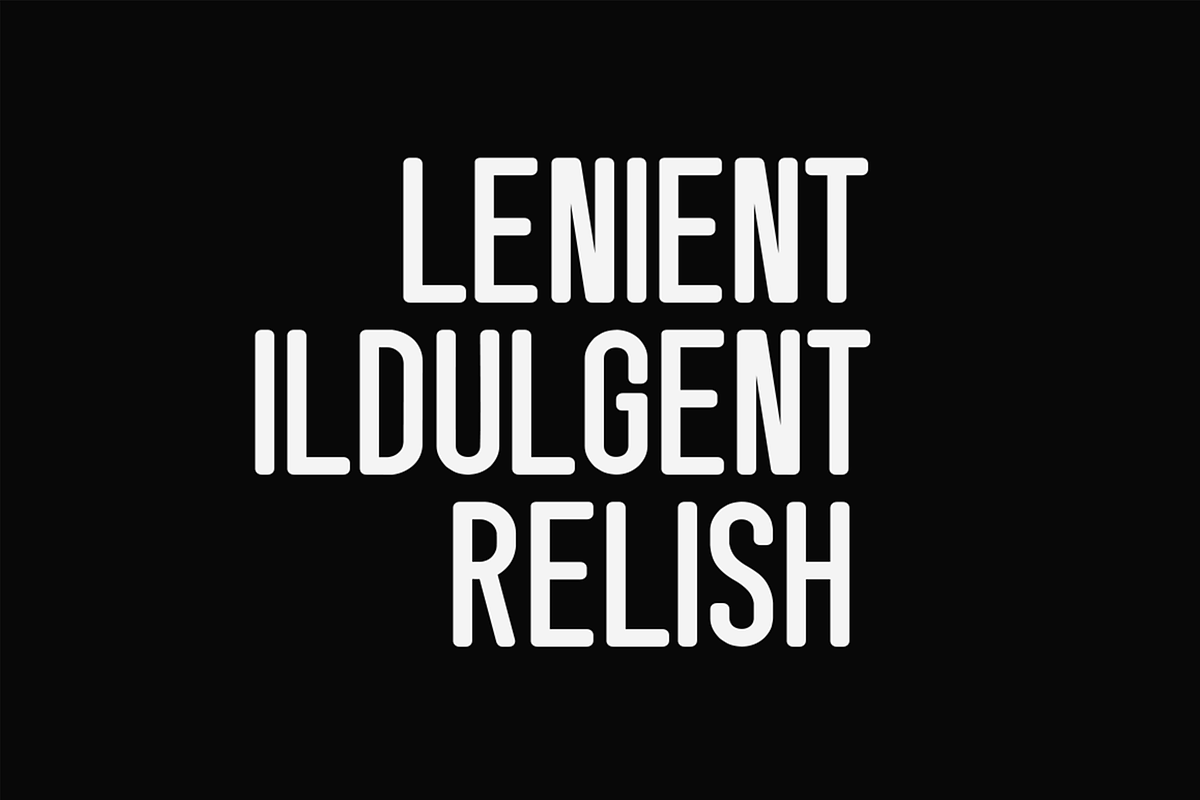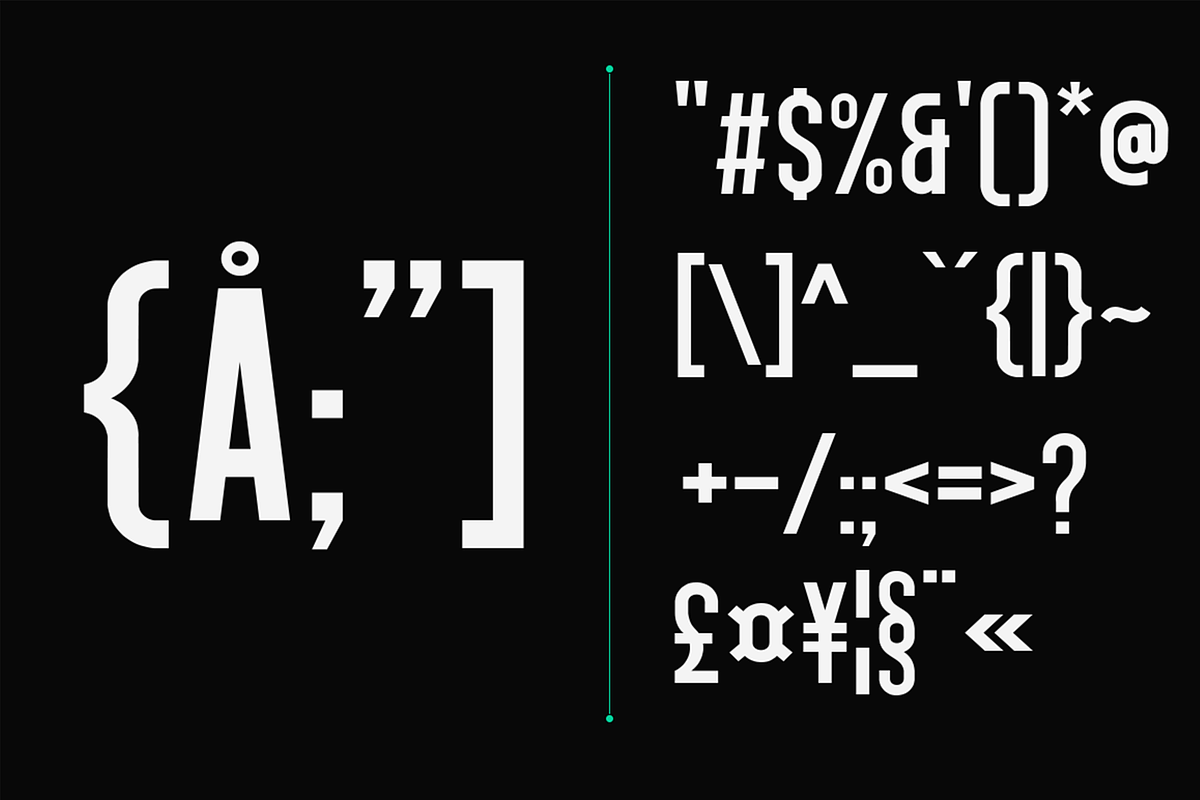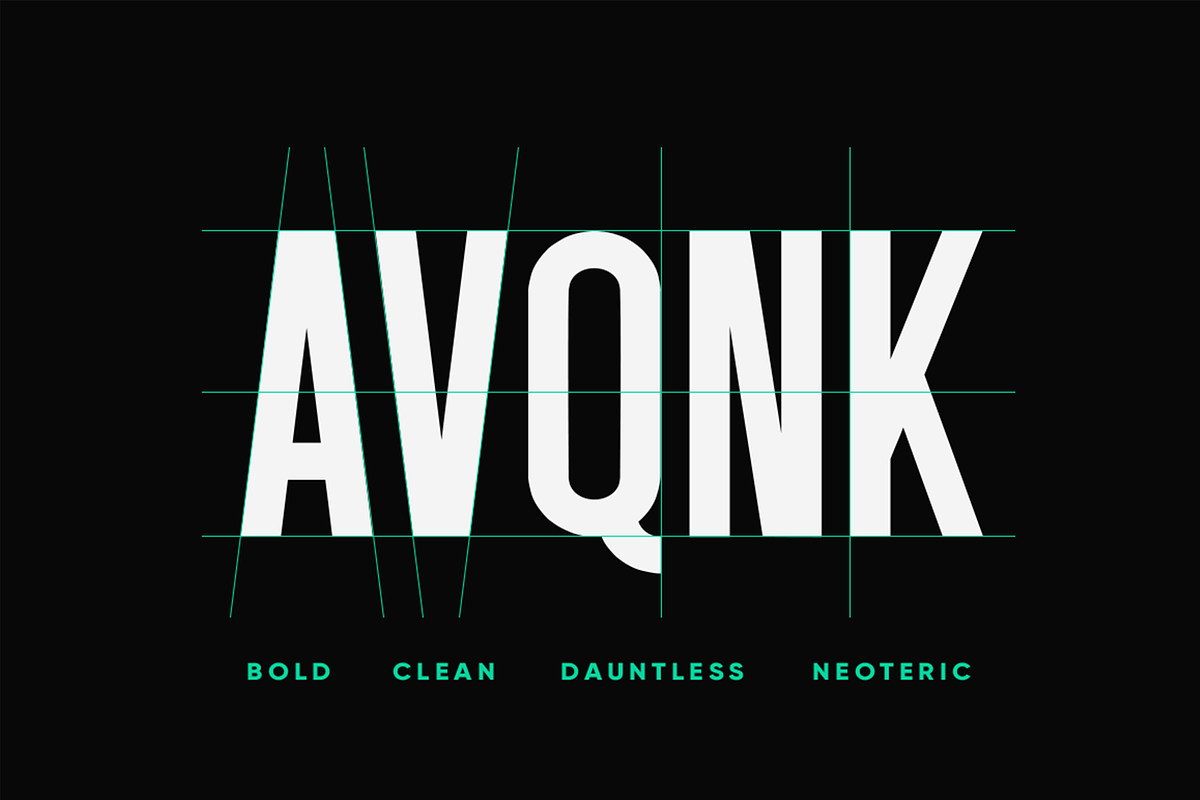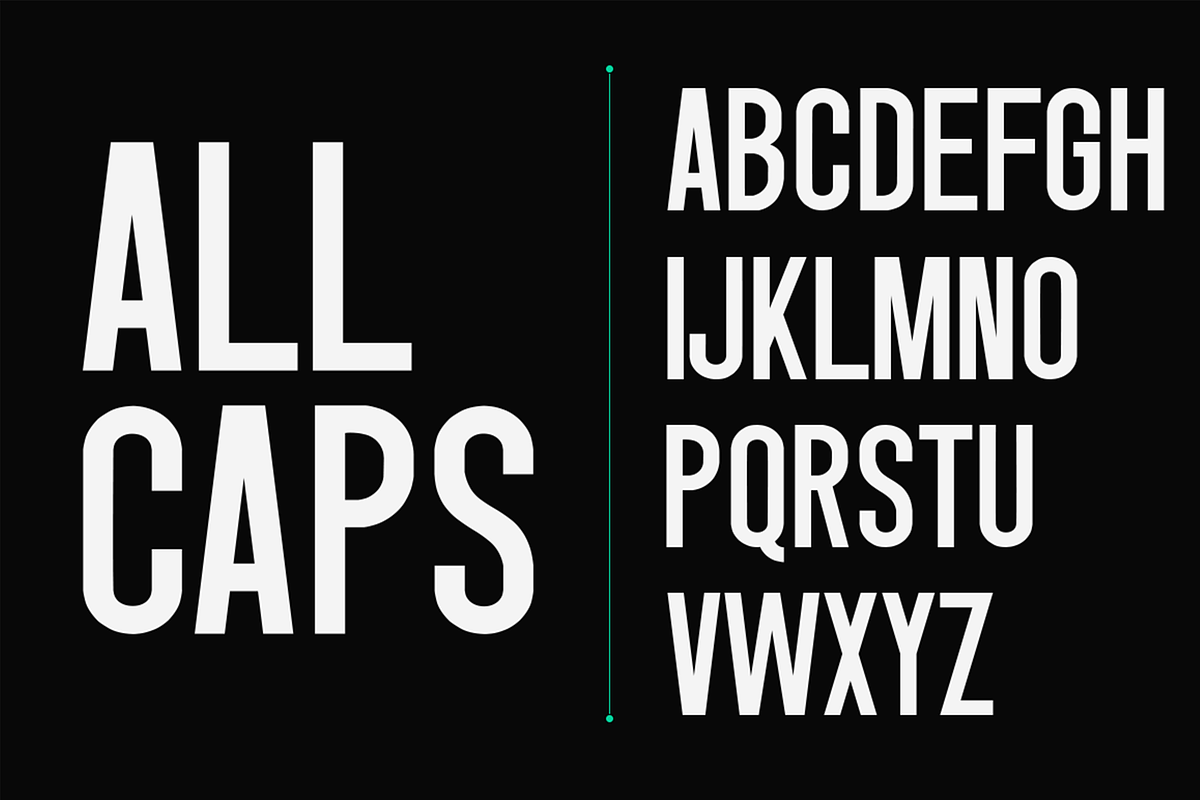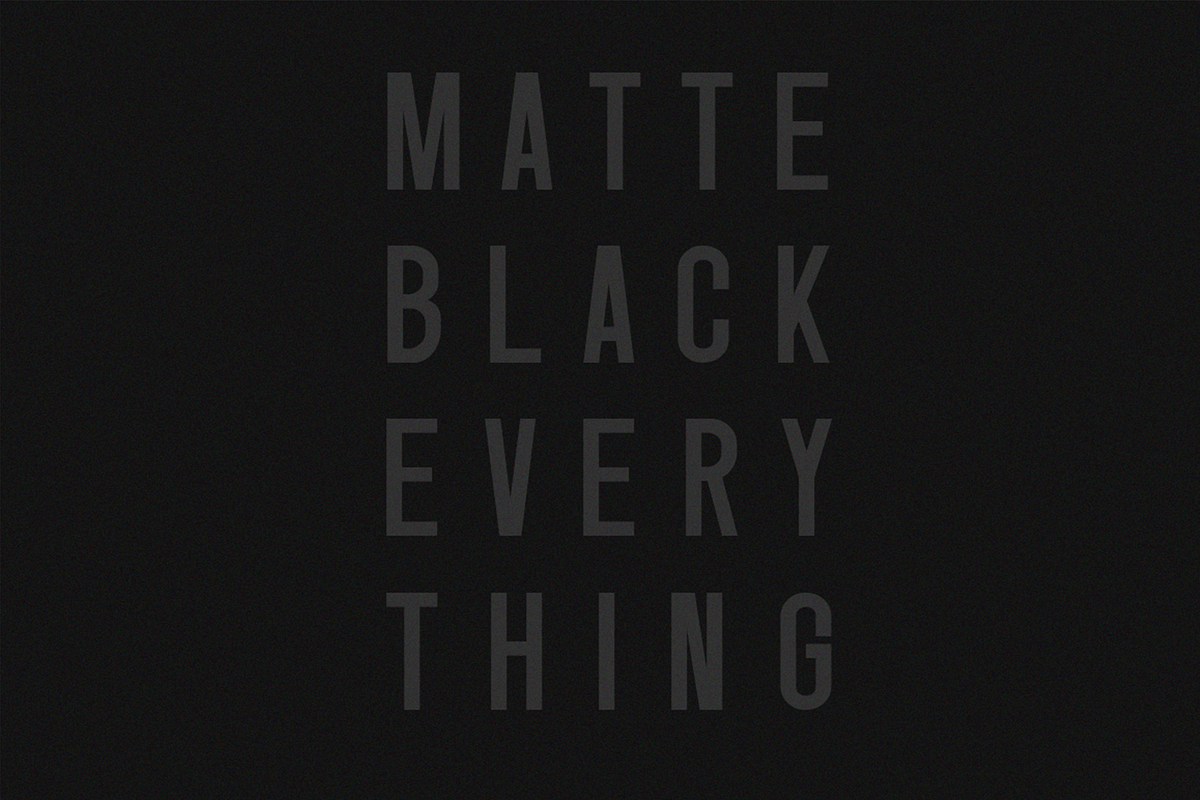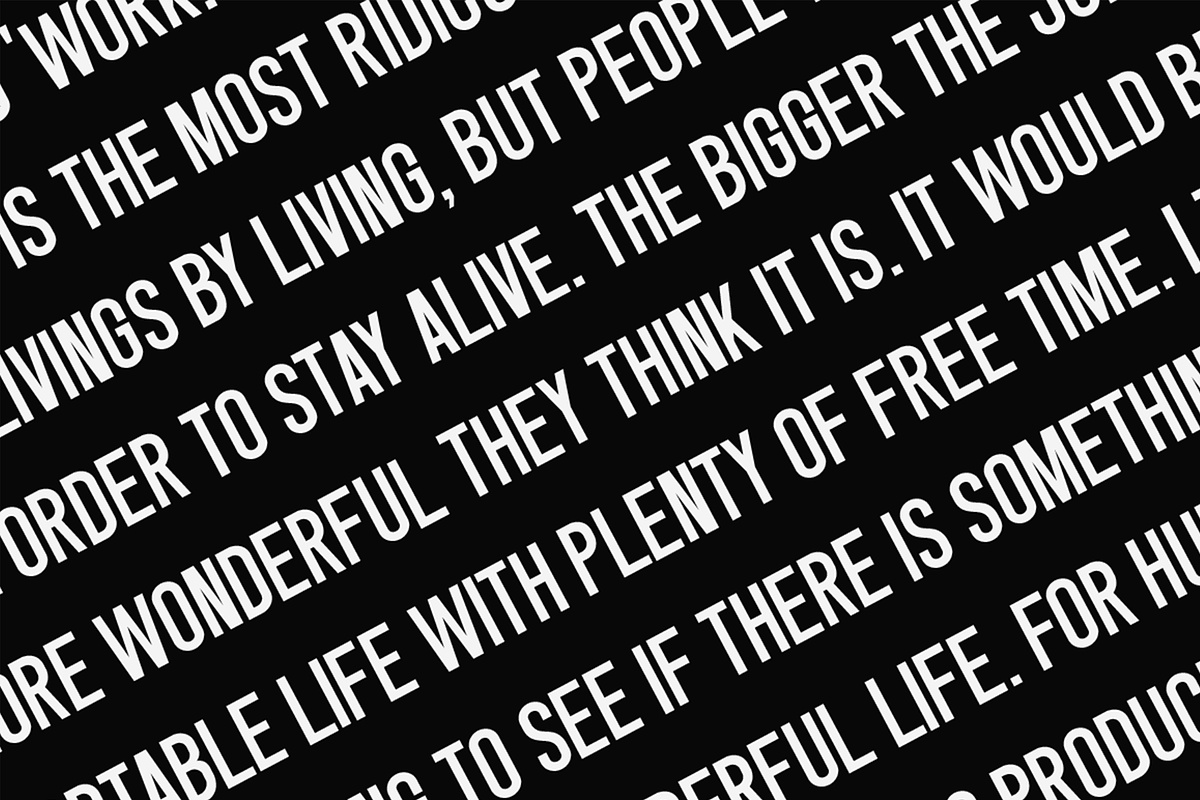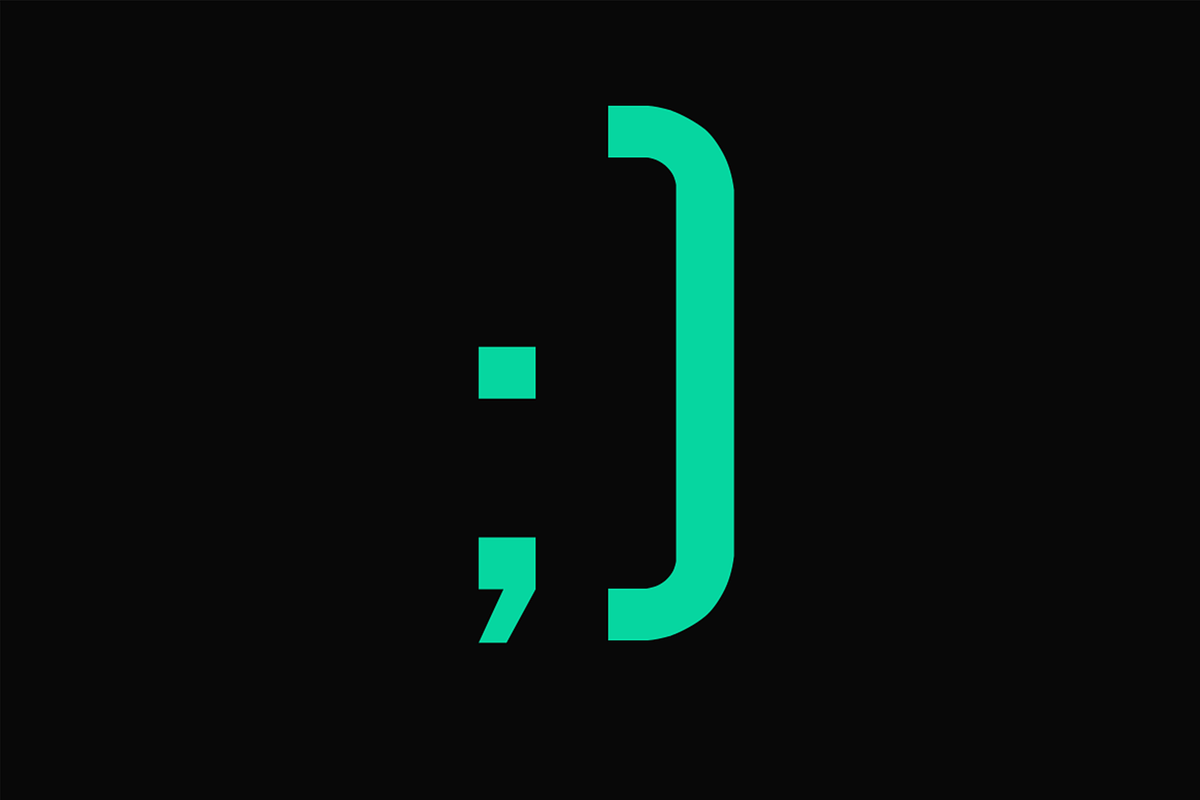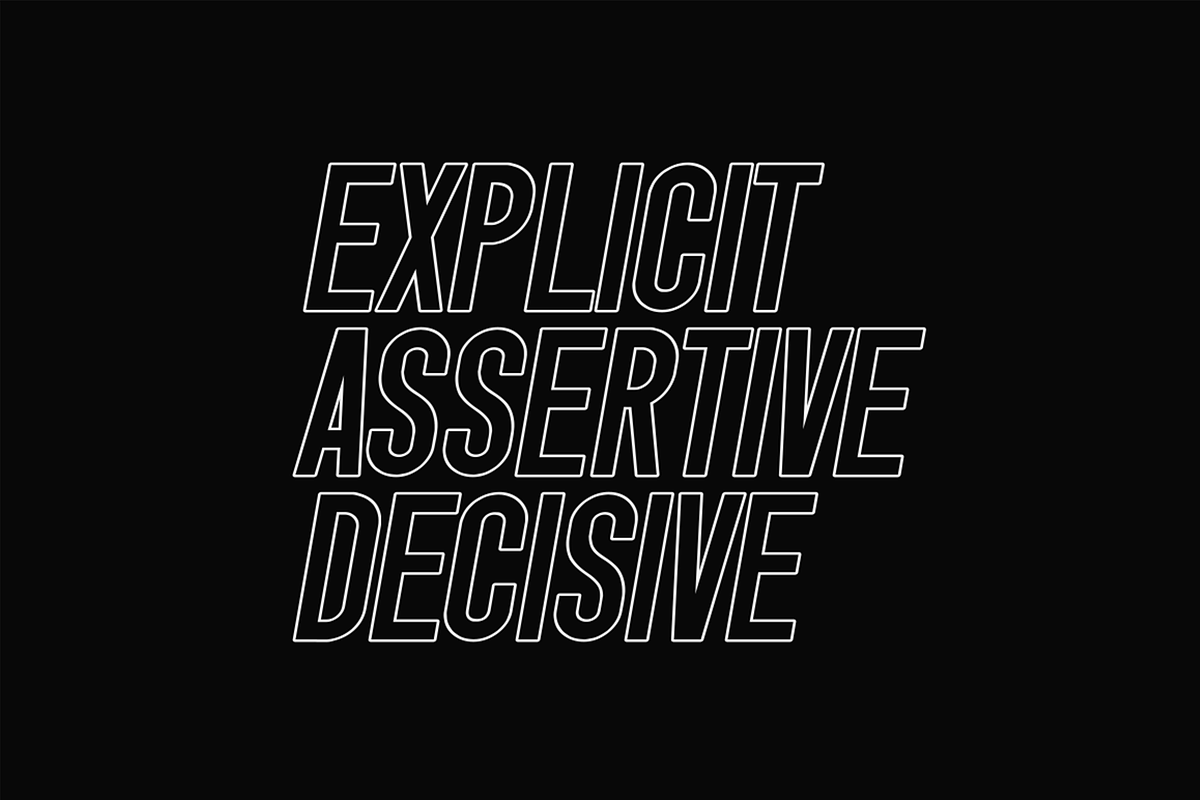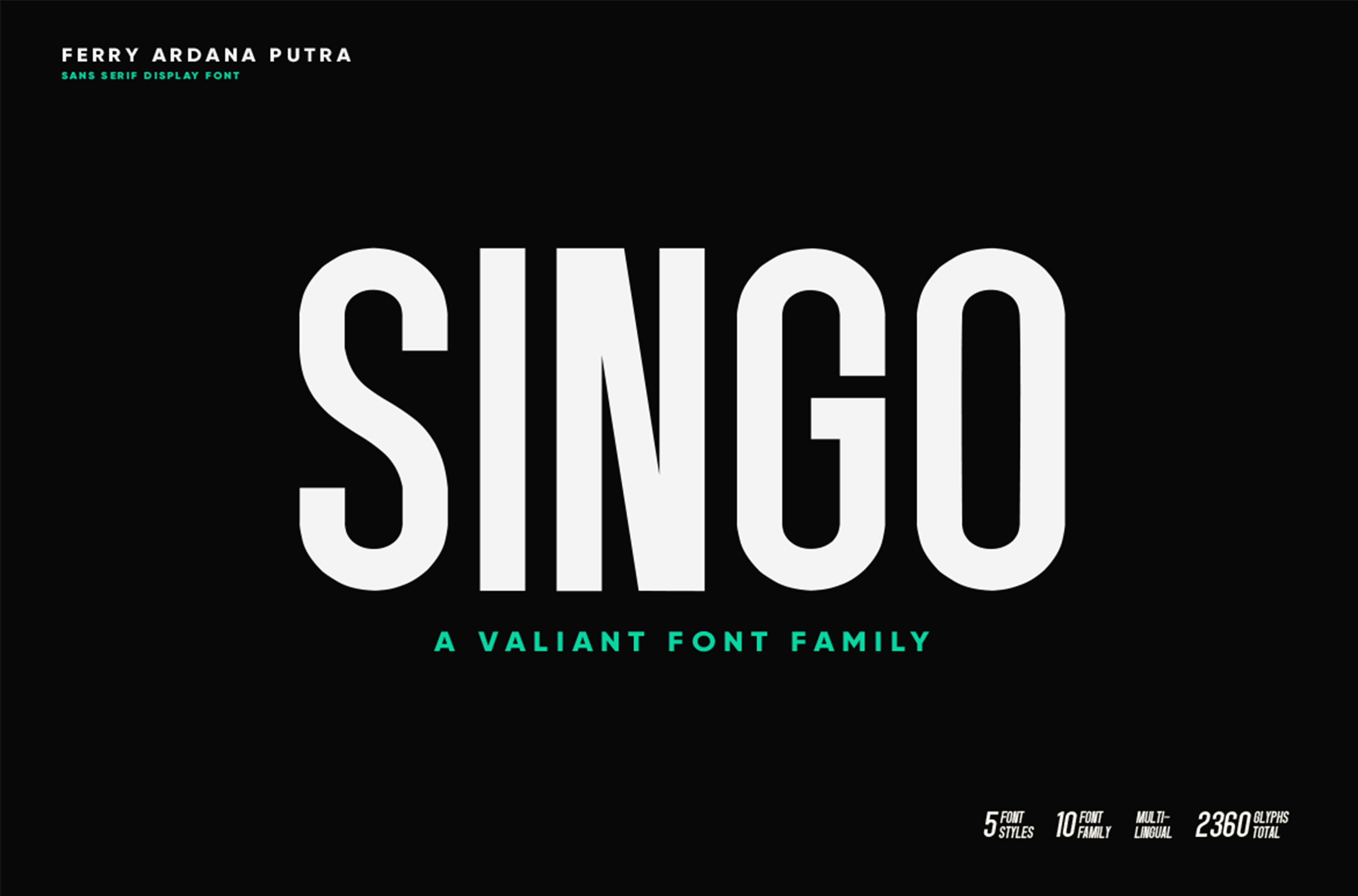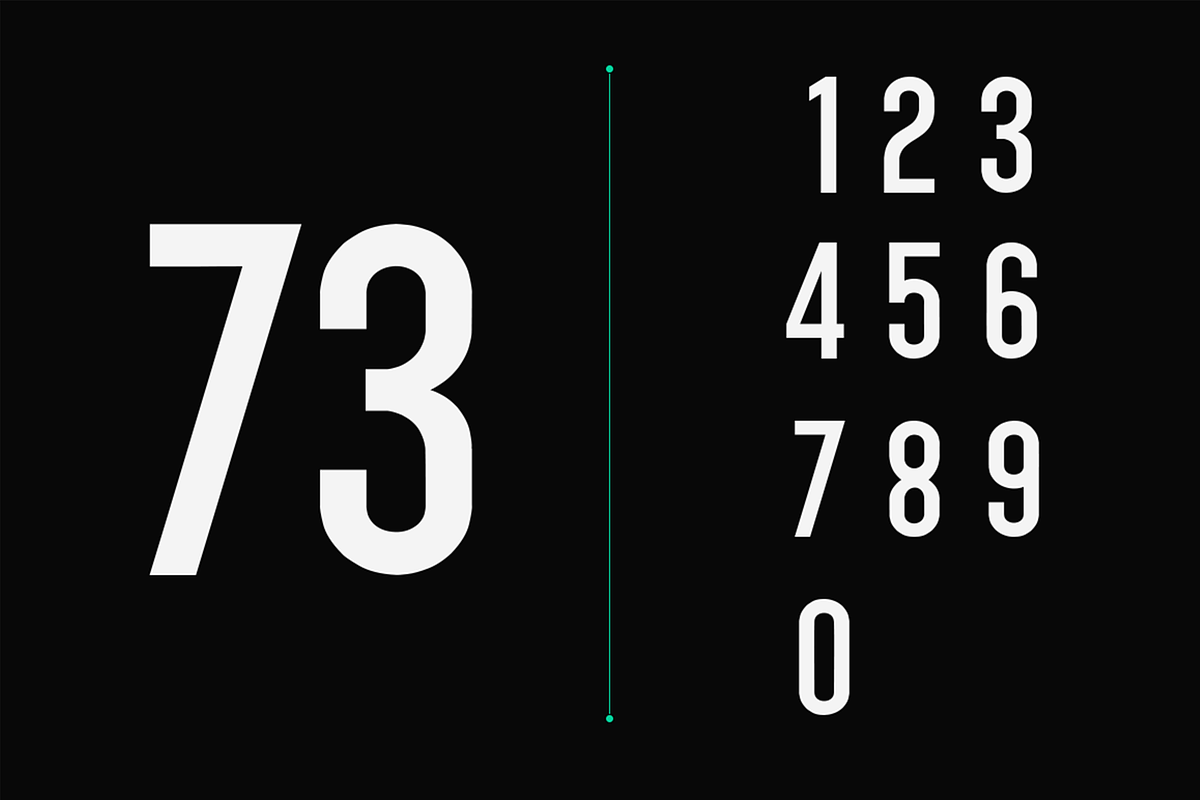
Singo | Sans Display Font
Singo is a valiant font family and extraordinary sans serif. Singo itself literally means Lion in Indonesia, which is the strong and gallant animal just like this typeface. It has a proportion of hard lines and smooth curves.
Singo works great in any branding, logos, magazines, films, posters, websites, photography, t-shirts, etc.
Singo features:
A full set of uppercase characters
Multilingual language support
2360 Total glyphs